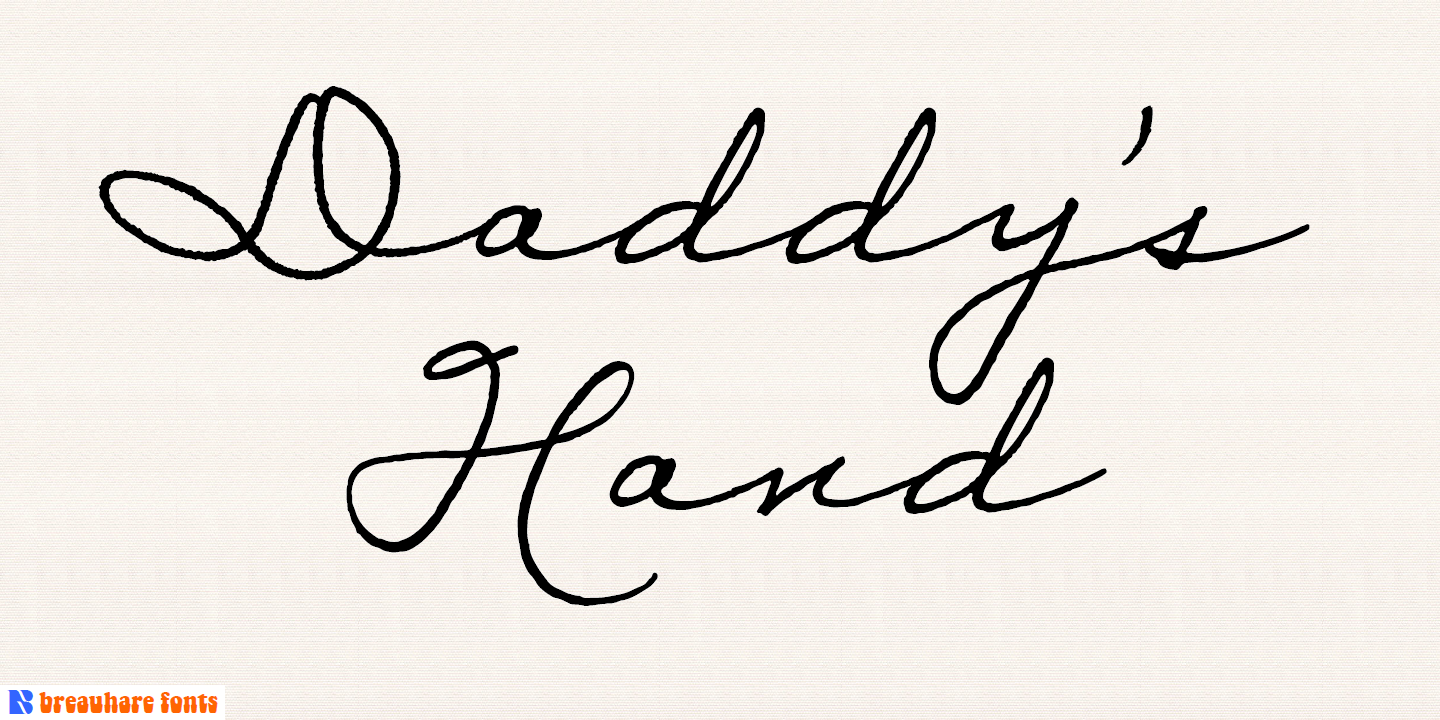
Daddy's Hand Font is an excellent choice for projects that aim to evoke a sense of personal touch, authenticity, and heartfelt sincerity. It's perfectly suited for children's book illustrations, personalized greeting cards, family scrapbooks, homemade craft labels, boutique branding with a friendly feel, nursery decor designs, and invitations for casual, warm gatherings. Its charming, handwritten style makes it ideal for conveying a feeling of genuineness and warmth.
What makes Daddy's Hand Font so exciting is its endearing and approachable quality. It genuinely looks like it was written by hand, complete with natural variations and a slightly whimsical feel. This gives your text an immediate sense of intimacy and humanity, making it feel less like a rigid digital output and more like a personal message. It’s a font that brings a smile, creating a connection with the viewer through its unpretentious and heartfelt aesthetic. Its imperfections are its strengths, adding character and warmth that highly polished fonts simply can't replicate.
The Daddy's Hand Font family typically focuses on capturing the natural flow of handwriting, so you might find variations that emphasize different levels of casualness or expressiveness. Often, the family will include a regular style, perhaps with a slightly bold or slanted companion to offer subtle variations while maintaining the core handwritten charm. Some versions might also include alternative characters or ligatures to enhance the natural, flowing appearance, making each word look uniquely crafted.
Whether you're designing a heartfelt gift, creating engaging educational materials for children, or establishing a brand that feels personal and trustworthy, the Daddy's Hand Font Free Download provides an invaluable tool. Its unique, human touch makes it a standout choice for anyone looking to add warmth, personality, and a genuine handmade feel to their designs.